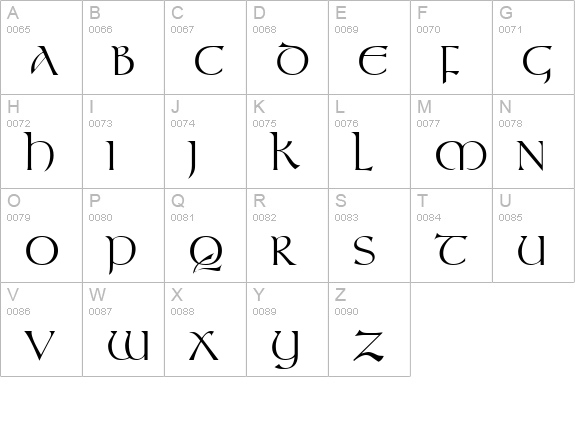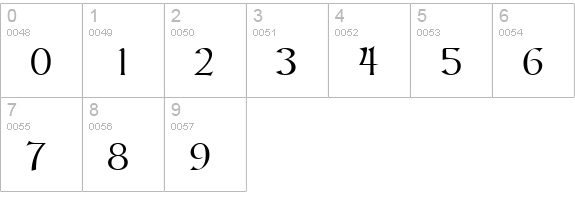
Tolkien Regular Font Details
Tolkien Regular is the standard, neutral variant in the Tolkien typeface family \xE2\x80\x94 well suited to general body text, paragraphs, and standard typographic work.
Tolkien Regular font is a timeless and versatile typeface that captures the essence of J.R.R. Tolkien's literary masterpieces. With its elegant and intricate letterforms, this font brings to life the enchanting world of Middle-earth, where epic tales unfold and mythical creatures roam. Designed with precision and attention to detail, Tolkien Regular font exudes a sense of adventure and mystery, making it the perfect choice for fantasy-themed projects, book covers, posters, and more. Its balanced proportions and graceful curves create a harmonious visual experience, enhancing the overall aesthetic appeal. What sets Tolkien Regular font apart is its availability for free, allowing users to bring a touch of Tolkien's magic into their design projects without any cost. As a freely downloadable font, it offers accessibility and convenience, making it a valuable resource for designers, writers, and enthusiasts alike. To obtain this extraordinary font, simply visit FontsMarket.com, where you can freely download Tolkien Regular font along with a wide range of other high-quality typefaces. So, whether you're embarking on a quest to create stunning visual designs or simply seeking to add a touch of Tolkien's brilliance to your work, Tolkien Regular font is the perfect companion.